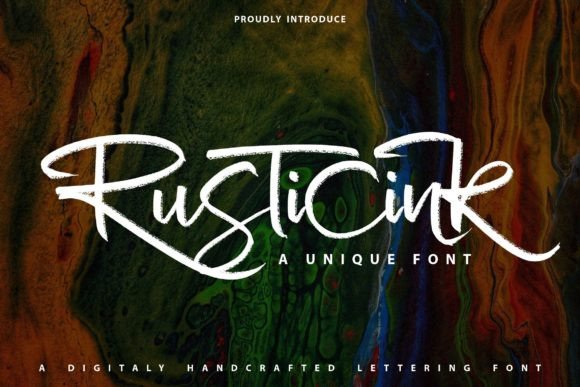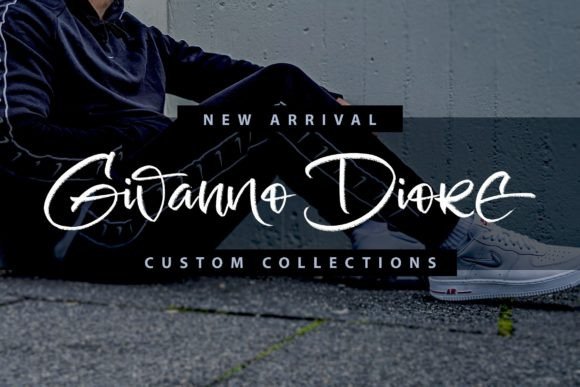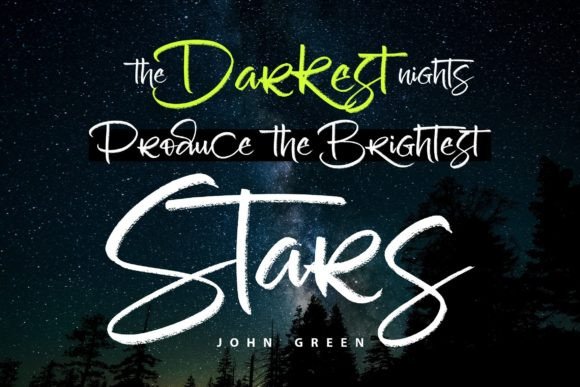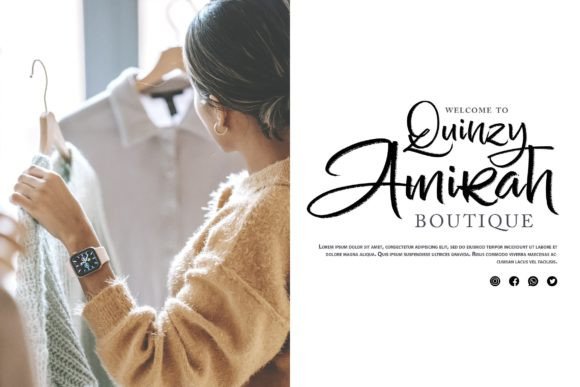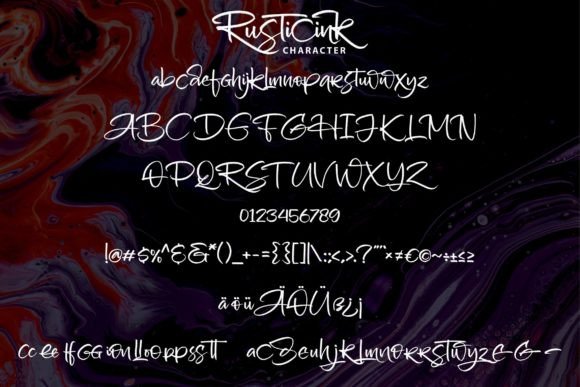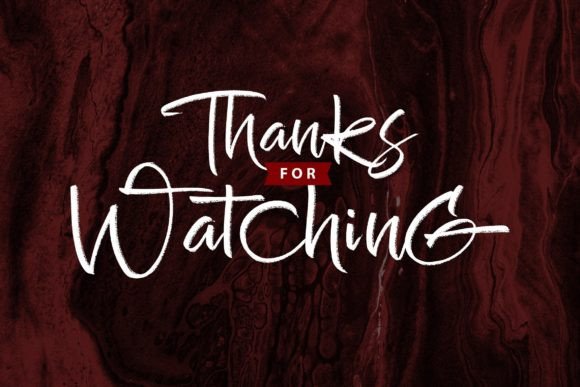
Rusticink Font
Rusticink is a natural and timeless handwritten font that exudes authenticity and charm. Its organic and rustic appeal makes it an excellent choice for creating eye-catching logos, branding materials, and memorable quotes. Each letter in Rusticink carries a unique and beautiful touch, adding a sense of liveliness and character to your designs.
The font’s handcrafted and imperfect strokes create a genuine handwritten look, making your text appear as if it was carefully penned by hand. This natural quality adds warmth and personality to your projects, making them more relatable and engaging to your audience.
Rusticink’s versatility allows it to seamlessly integrate into various design contexts, providing a timeless and classic feel. Whether you’re designing a logo that requires a rustic touch or crafting impactful quotes for social media posts, Rusticink’s handwritten charm enhances the overall visual appeal of your content.
Incorporating Rusticink into your designs enables you to infuse your projects with a sense of authenticity and organic beauty. Its natural and timeless handwritten style creates a connection with your audience, making your designs stand out with a genuine and heartfelt touch.
Embrace the natural and timeless essence of Rusticink, and let it breathe life into your designs. Whether you’re working on logos, branding materials, or inspirational quotes, Rusticink’s unique and beautiful letters bring a touch of authenticity, making your designs come alive with character and charm.